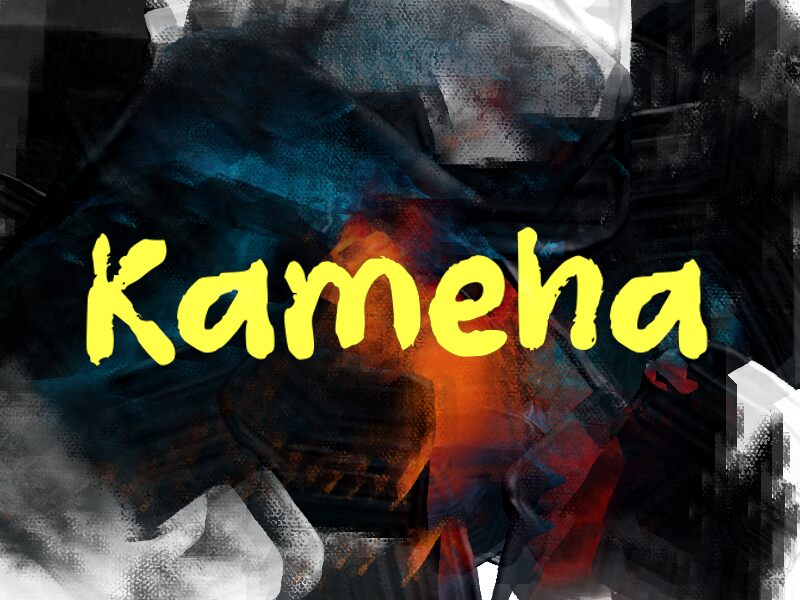
K Kameha font, created by Wep, is a free brush font with a natural and organic feel. It captures a lively and casual demeanor with its textured and expressive strokes. The visual impact of this font is energetic and dynamic, offering a relaxed and approachable look.
K Kameha is an excellent choice for projects that aim to convey a sense of spontaneity and creativity. Use it in branding, packaging designs, book covers, logos, social media content, posters, greeting cards, magazine layouts, or advertising materials to give your creation share of personality and character.
Kameha is a versatile free font that offers a modern and stylish look, perfect for various design projects. Whether you're creating a logo, a poster, or social media graphics, Kameha provides the aesthetic qualities you need to make your work stand out. Its clean lines and unique character make it an excellent choice for both personal and commercial use.